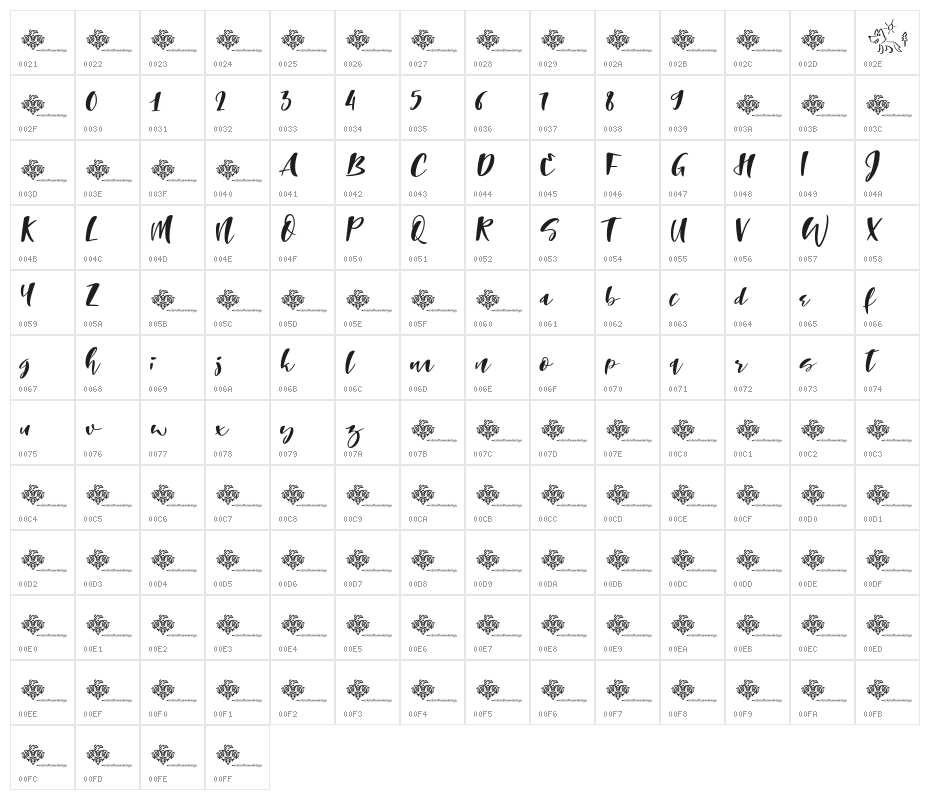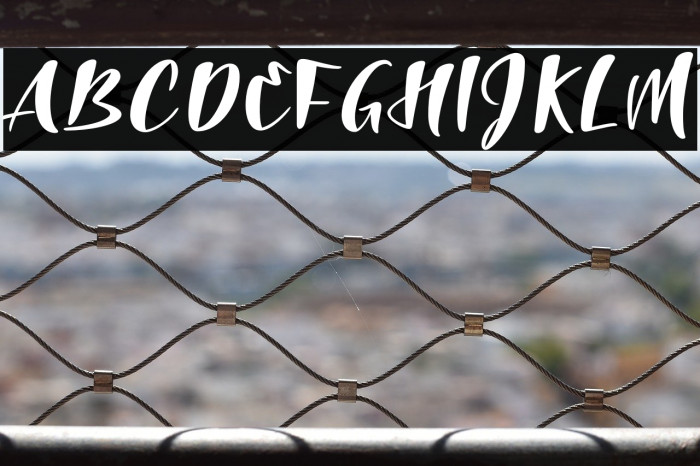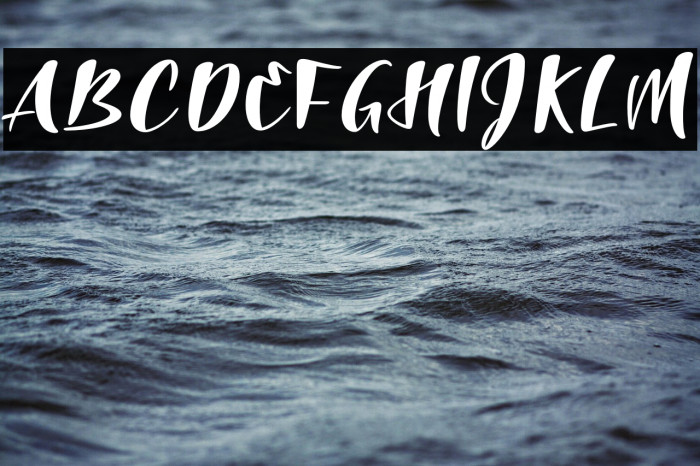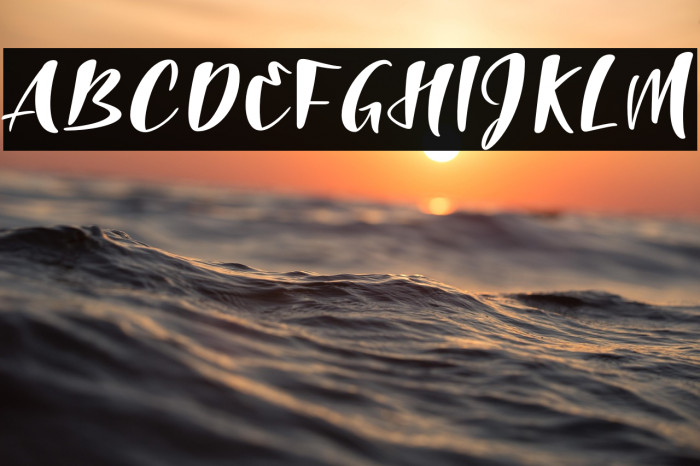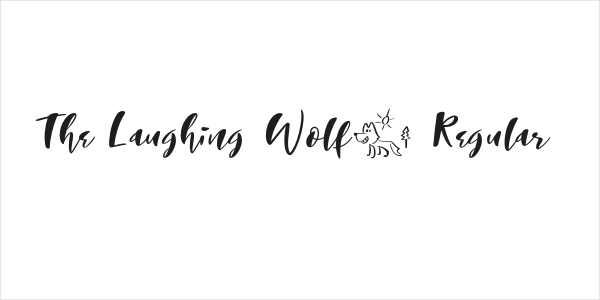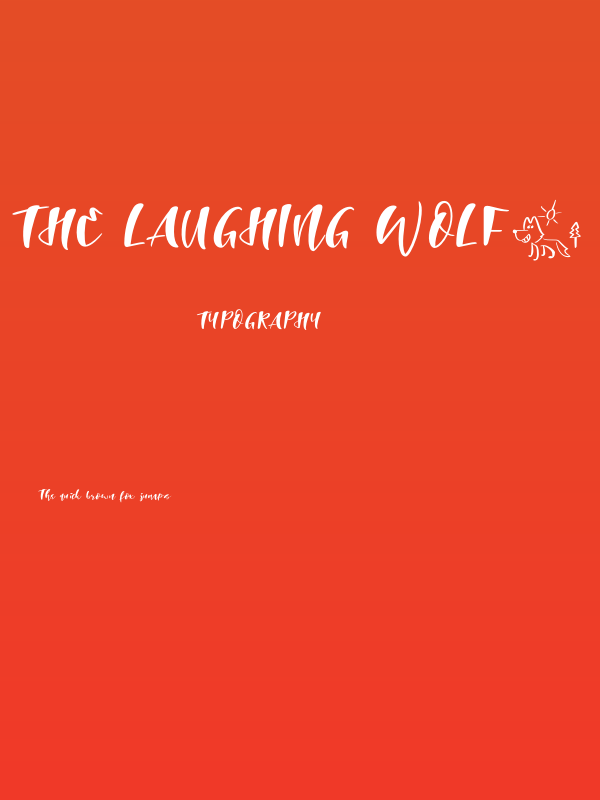
The Laughing Wolf. Regular Font
The Laughing Wolf. Regular Description
This font features a bold and expressive script style with a handwritten appearance. The characters are fluid and dynamic, showcasing a playful yet elegant aesthetic. The uppercase letters are particularly striking, with sweeping curves and varying stroke widths that add a sense of movement and energy. The lowercase letters maintain a cohesive style, complementing the uppercase with their own unique flair. Numbers and special characters are designed with the same attention to detail, ensuring consistency across all elements. This font is ideal for projects that require a personal touch, such as invitations, greeting cards, or branding materials.
| Proposed Projects | Ideal for invitations, greeting cards, branding, and creative projects requiring a personal touch. |